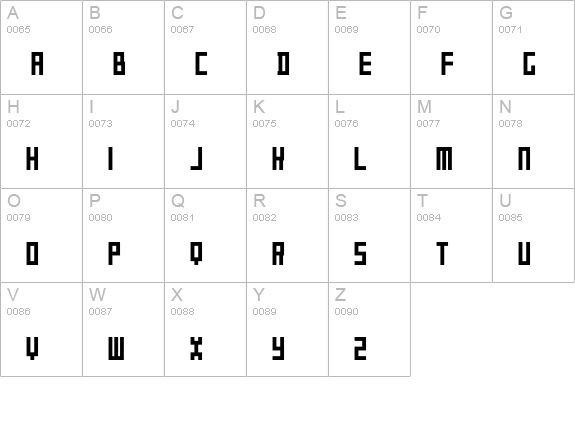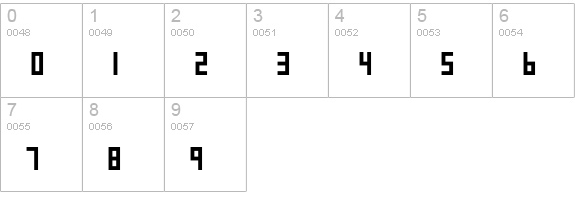
DeStijl Tall Font Details
The DeStijl Tall font is a sleek and modern typeface that exudes sophistication and elegance. With its clean lines and tall, slender letterforms, this font is perfect for creating a contemporary and stylish look in any design project. The DeStijl Tall font is versatile and can be used for a wide range of applications, from branding and advertising to editorial design and web graphics. What sets the DeStijl Tall font apart is its unique blend of minimalism and sophistication, making it a standout choice for those looking to make a bold statement with their typography. Whether you're designing a sleek logo, a stylish poster, or a modern website, the DeStijl Tall font is sure to impress. Best of all, the DeStijl Tall font is available for free download at FontsMarket.com, making it accessible to designers of all skill levels. So why wait? Add a touch of modern elegance to your designs with the DeStijl Tall font today!